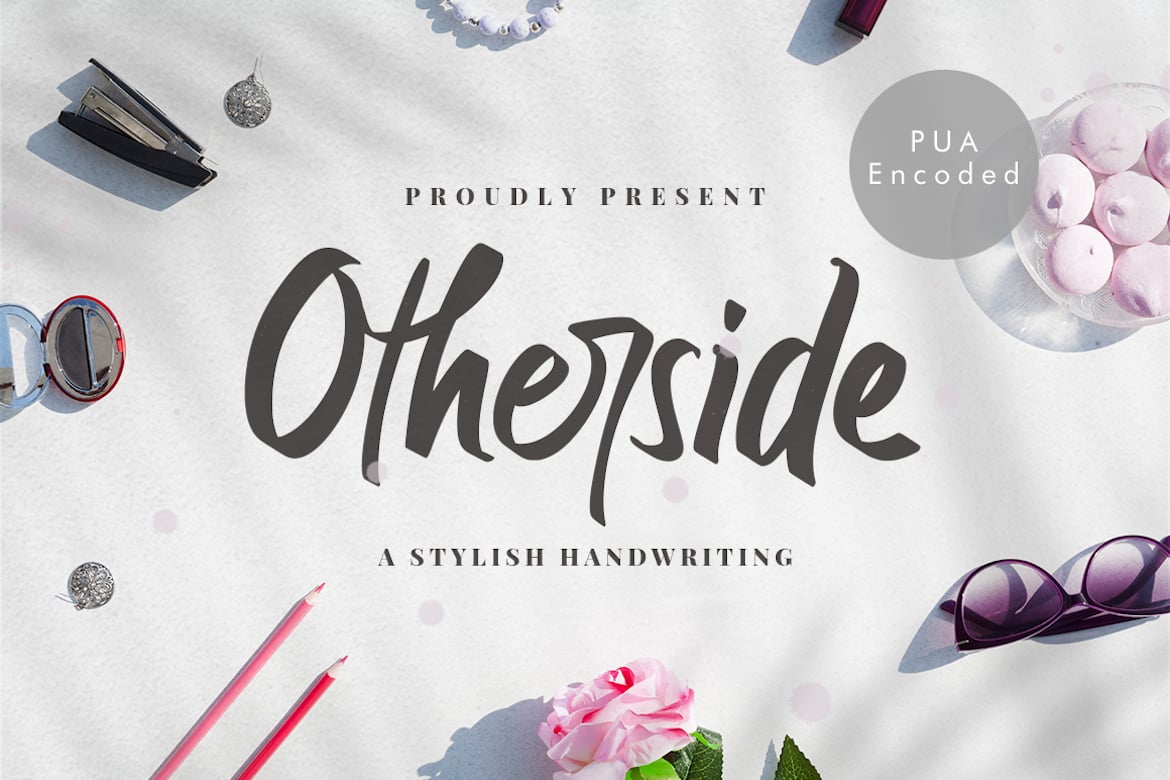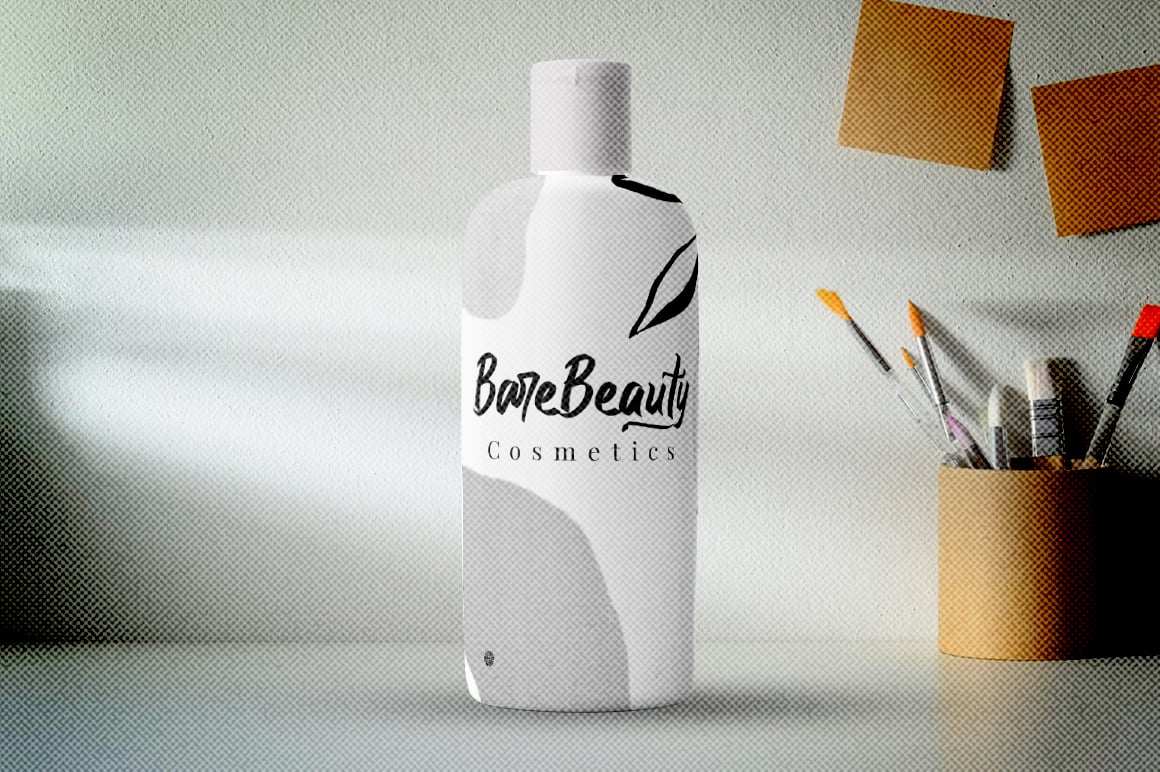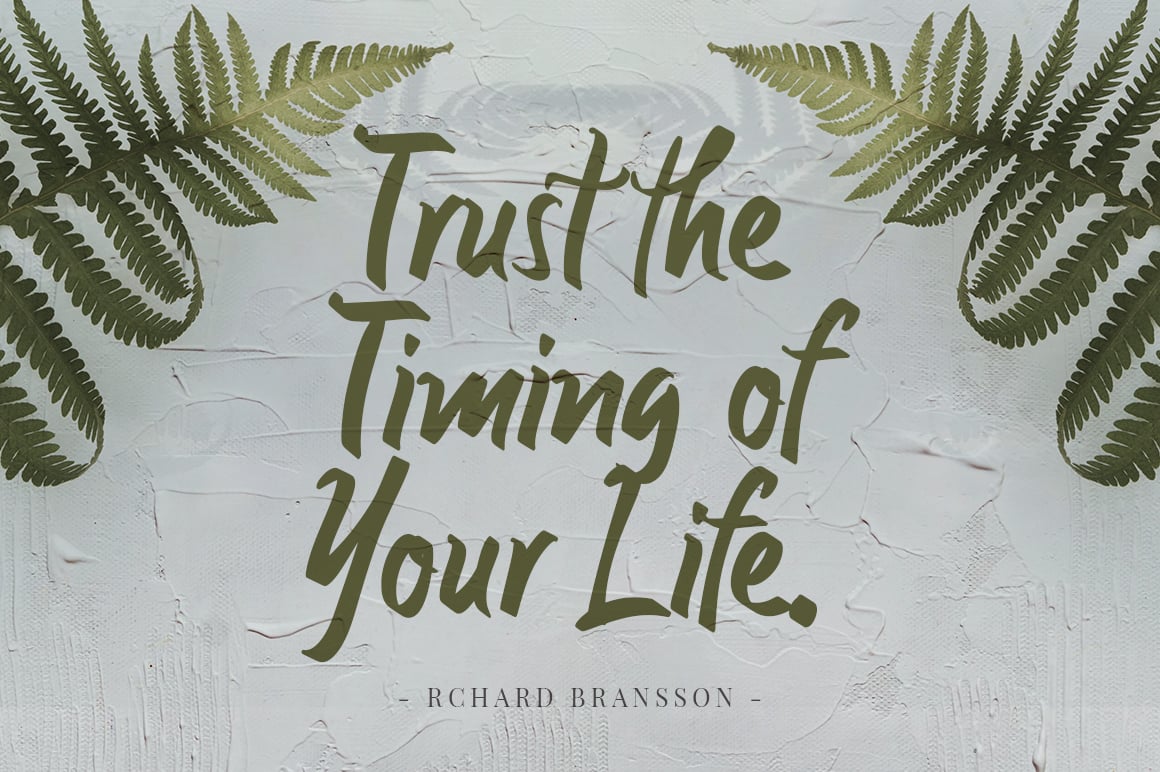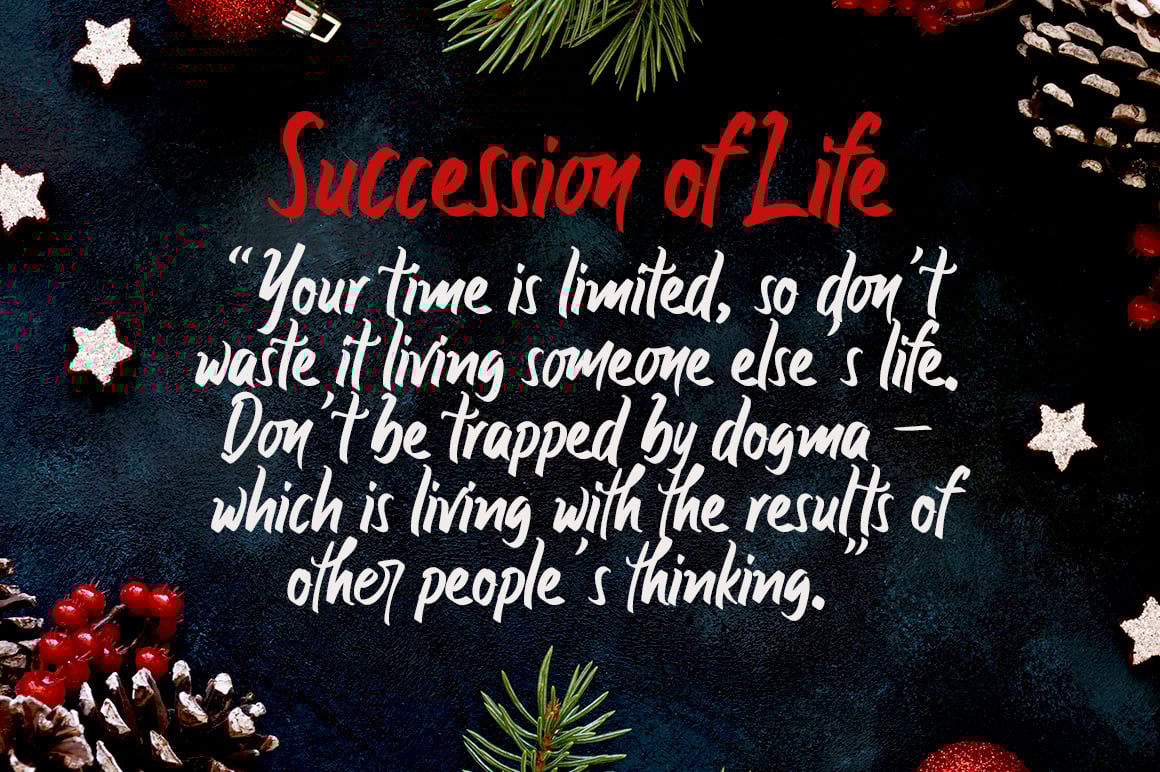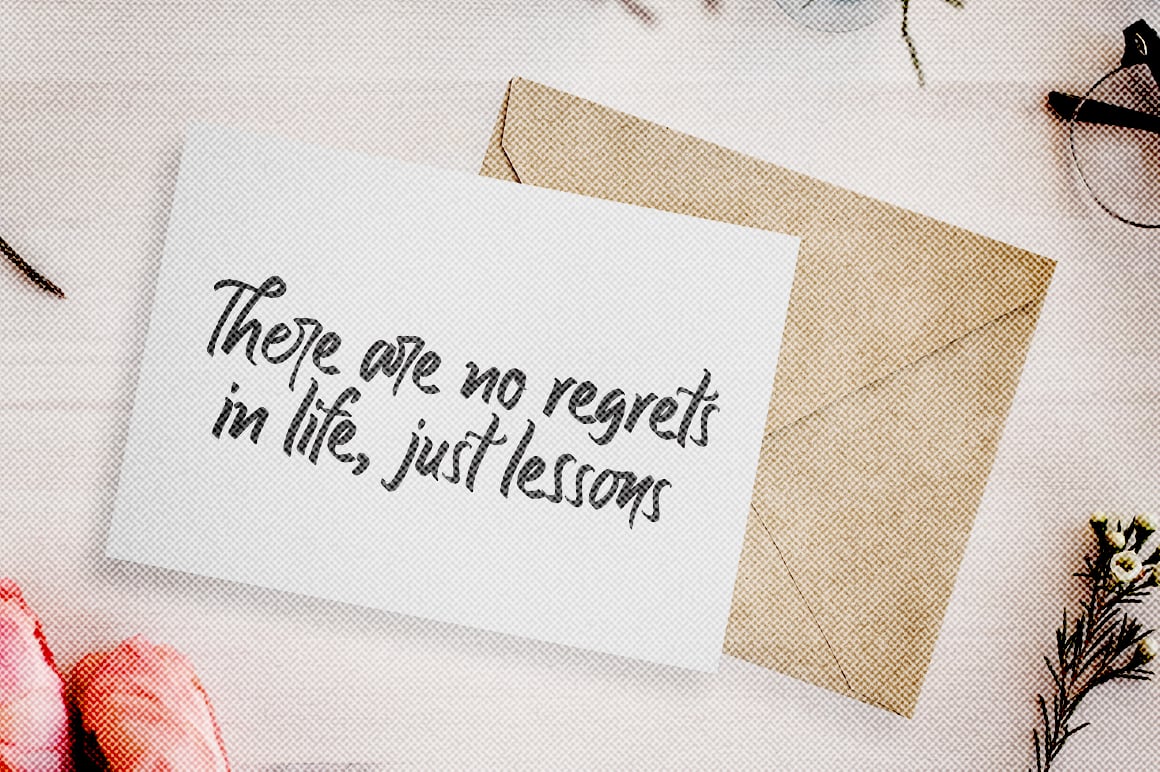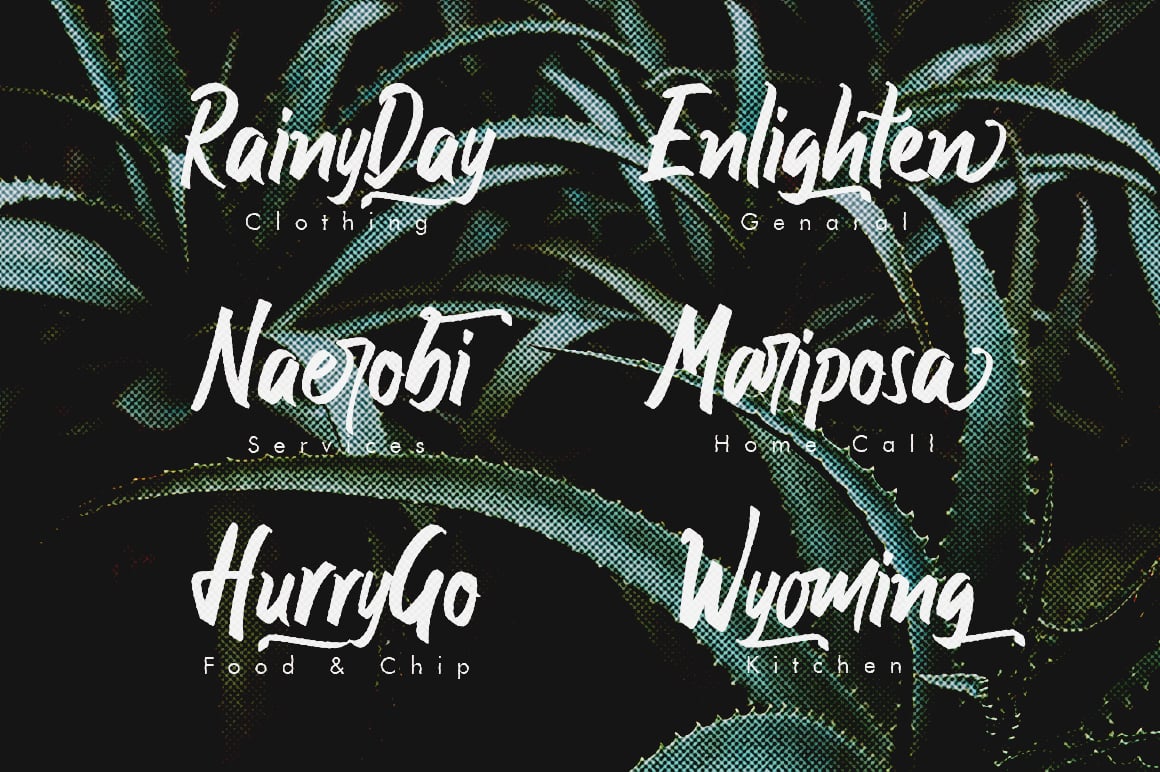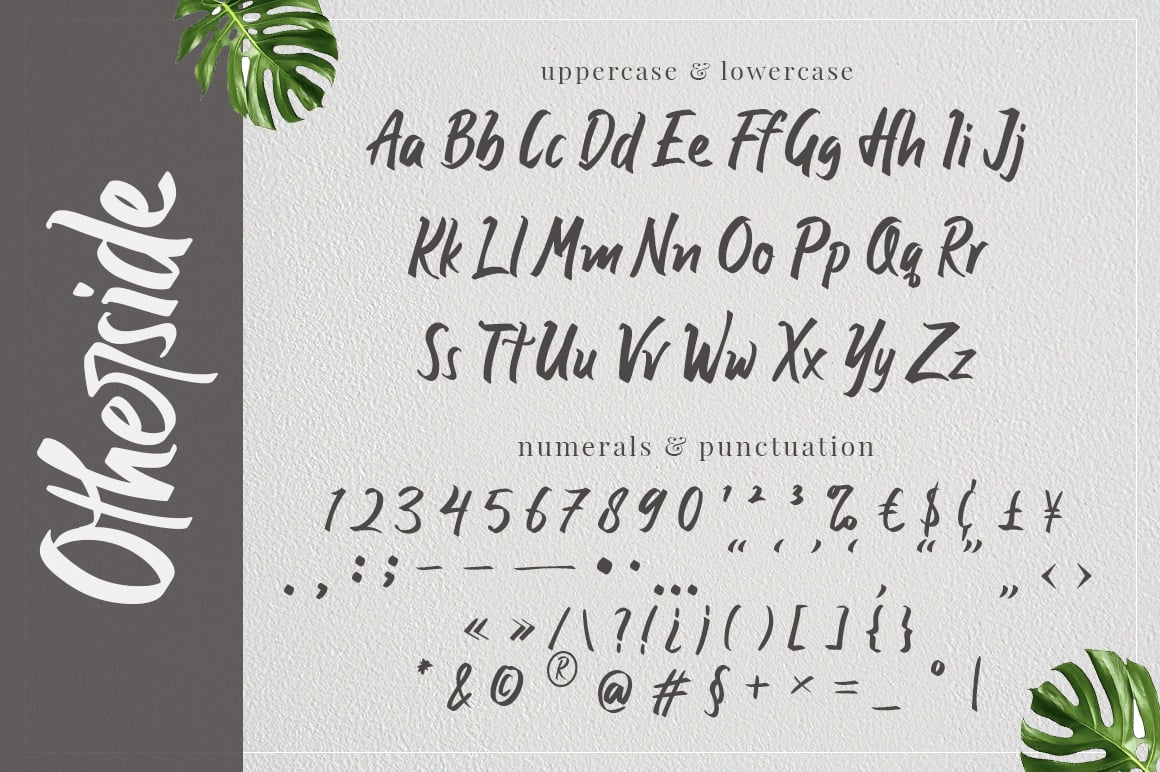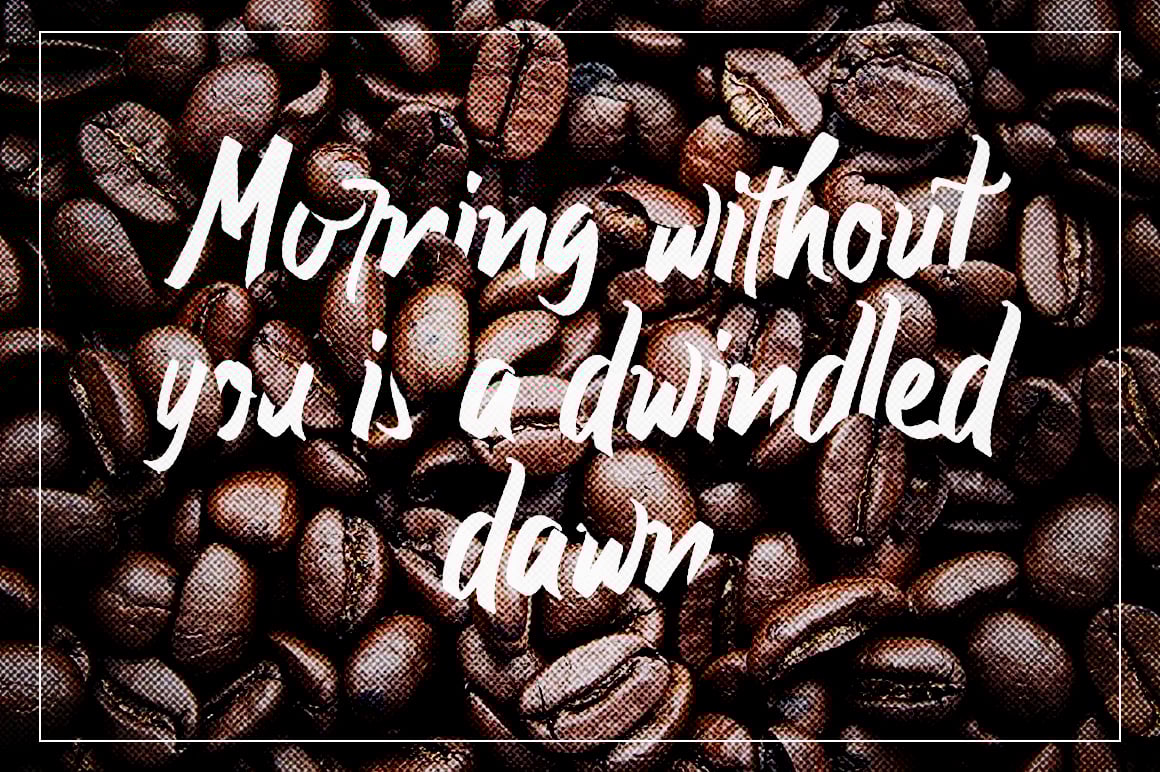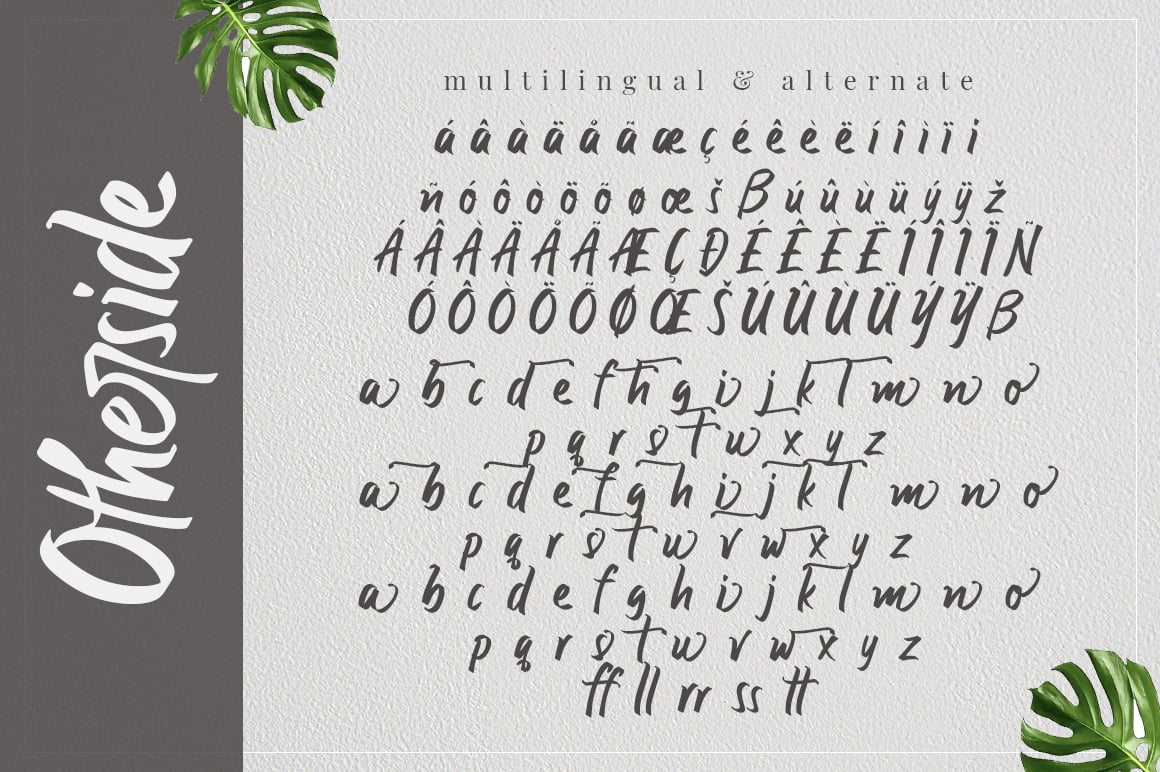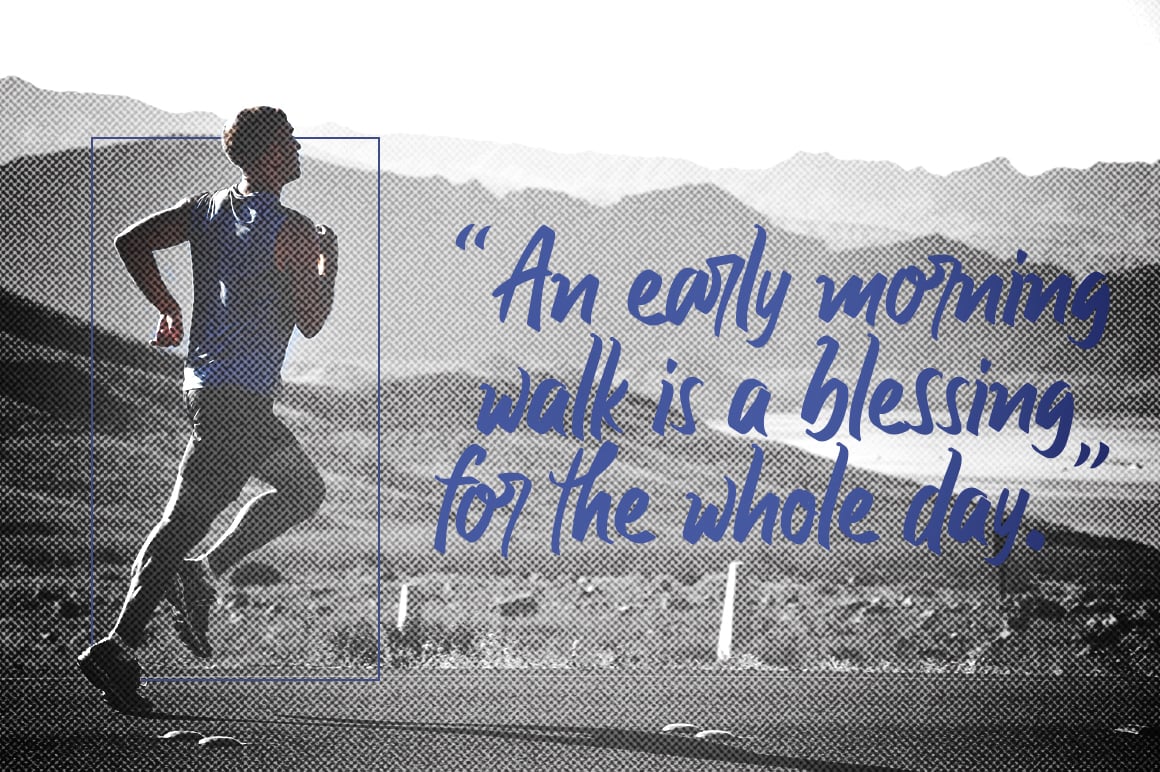
Otherside – Stylish Handwriting Font
Introducing Otherside handwriting font with tons of alternate characters and OpenType features. This font perfects to use for any kind of design such as branding projects, logo, brochures, business cards, wedding designs, social media posts, advertisements, product packaging, product designs, label, photography, watermark, invitation, brand company, stationery, any design project.
Otherside comes with more than 240 glyphs! Specific OpenType features include stylistic alternates, optional final forms, multiple alternate glyphs for many letters (accessed through the glyphs panel), multilingual support (including multiple currency symbols), and ligatures.